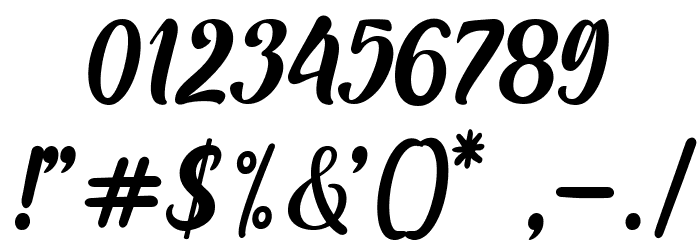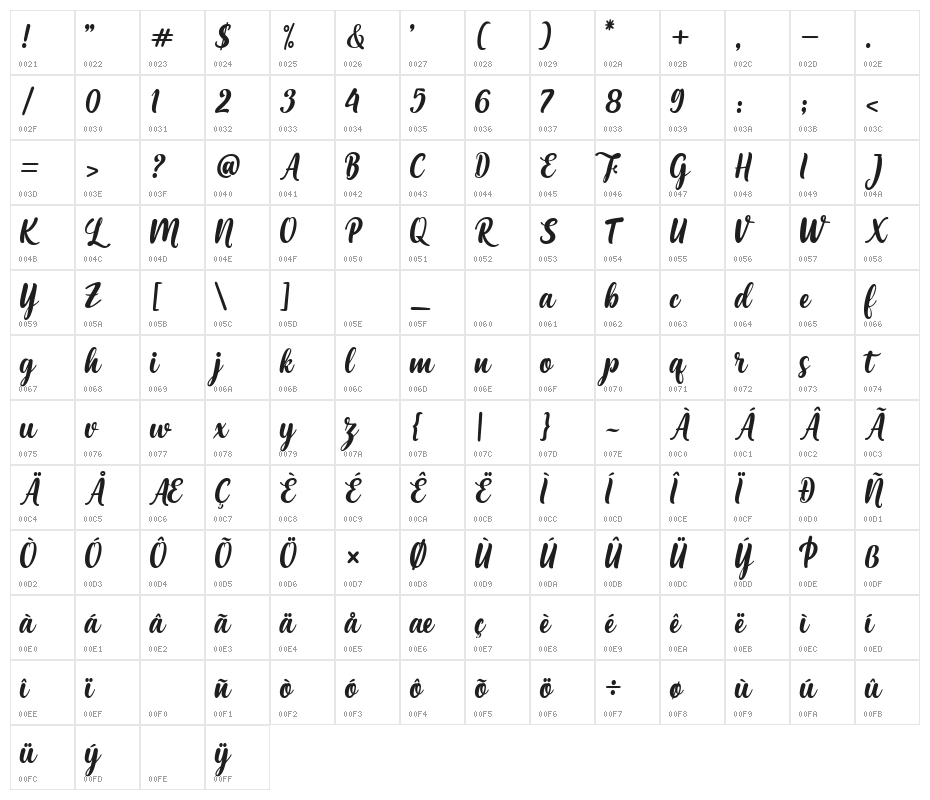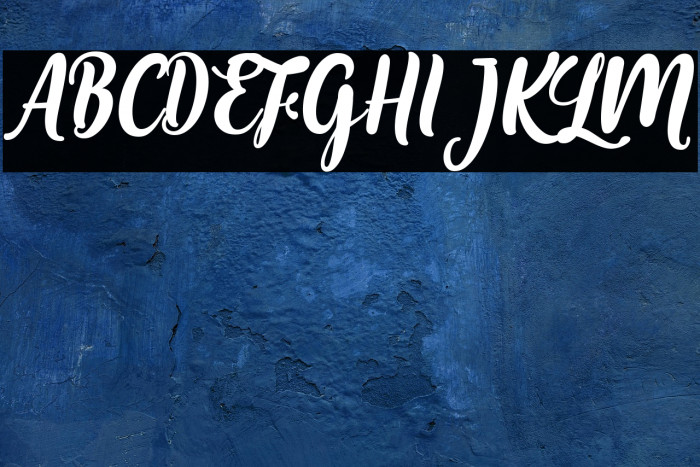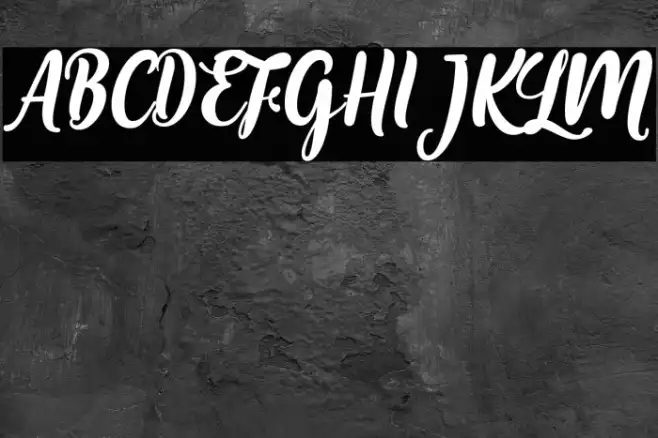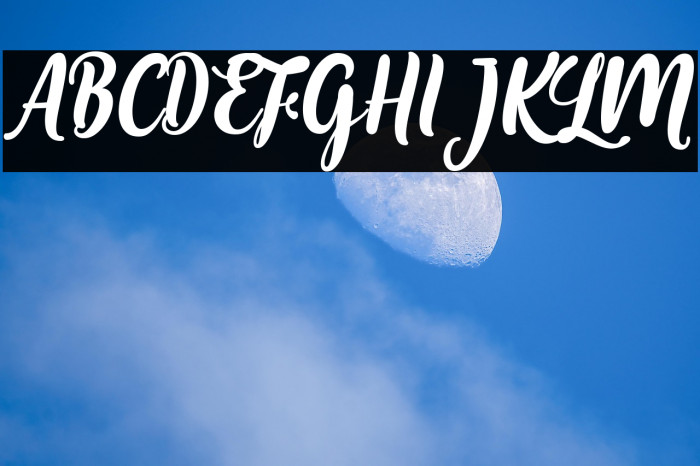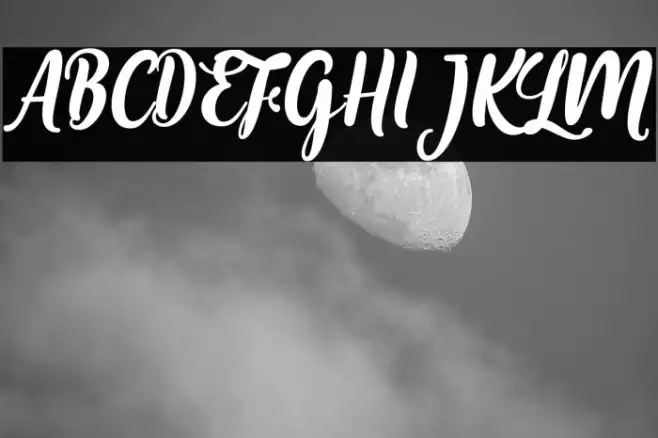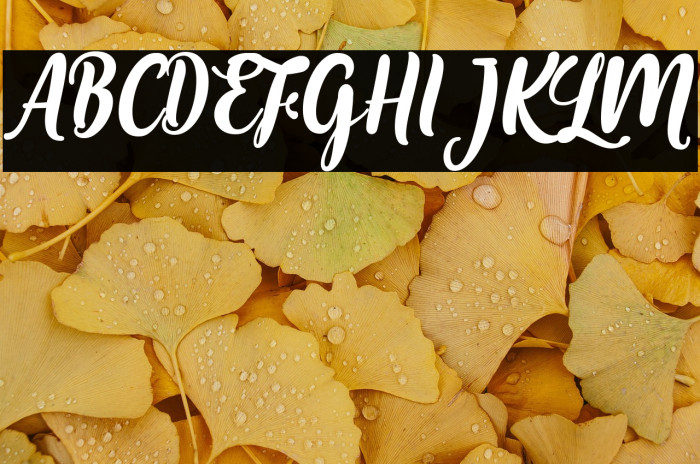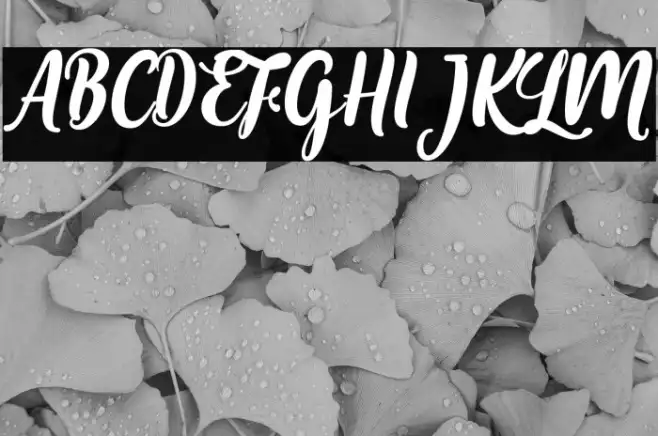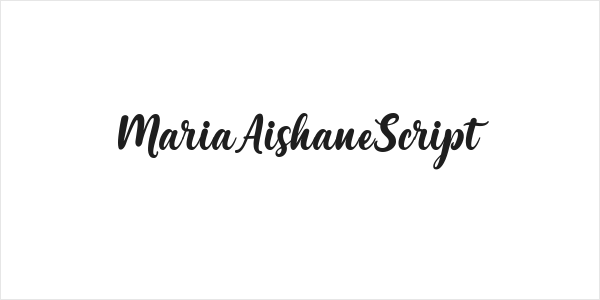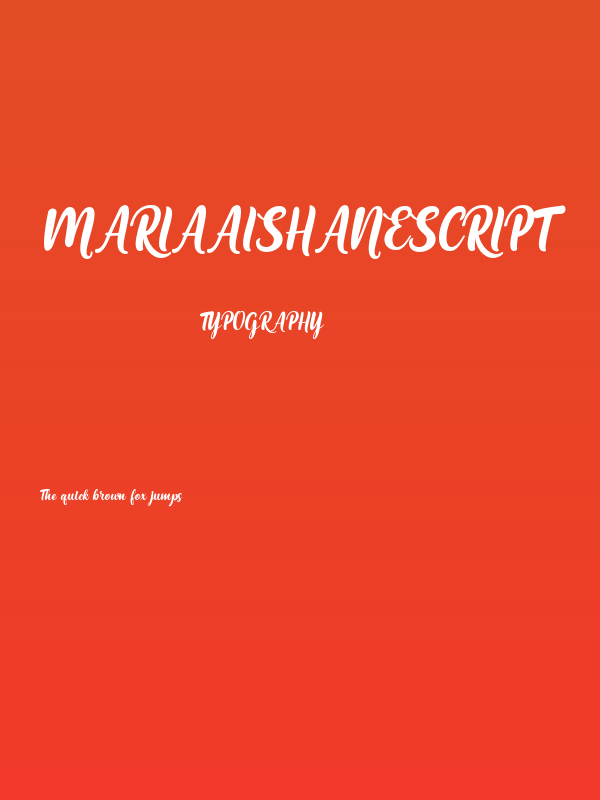
MariaAishaneScript Font
MariaAishaneScript Description
This script font exudes elegance and fluidity, characterized by its smooth, flowing strokes and cursive style. The uppercase letters are bold and expressive, while the lowercase letters maintain a consistent rhythm, enhancing readability. The numerals and special characters are designed to complement the overall aesthetic, making them suitable for a variety of applications. The font's playful yet sophisticated appearance makes it ideal for creative projects that require a touch of personality and flair.